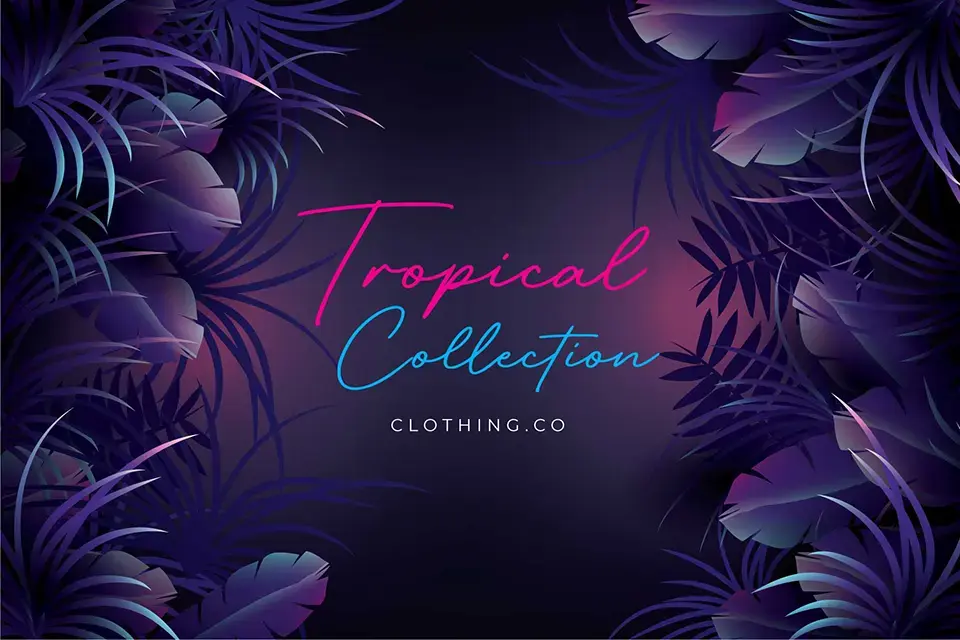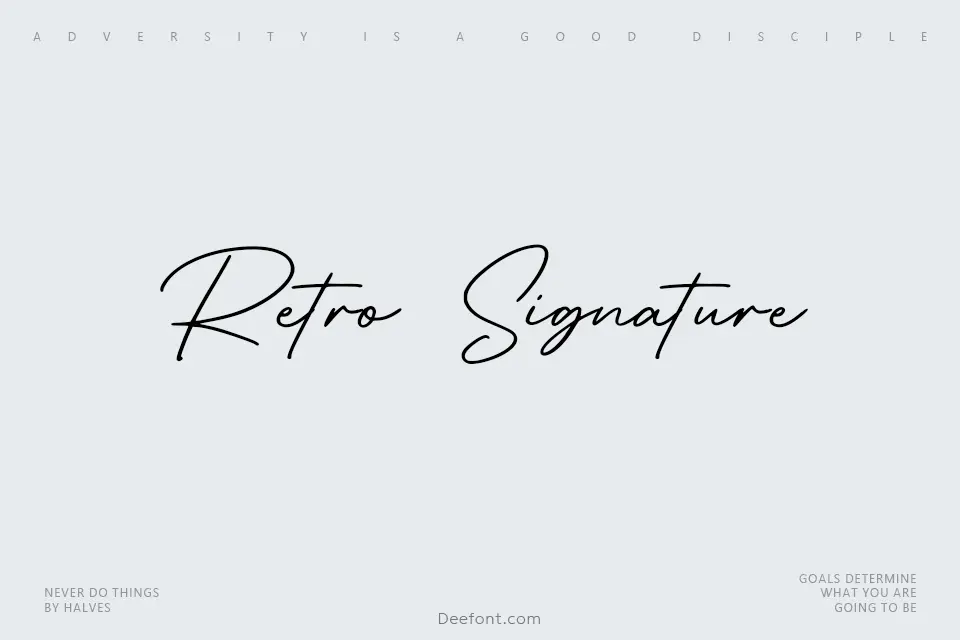
Retro Signature Font
Retro Signature is a sophisticated script font combining vintage charm with modern elegance. Featuring flowing cursive letterforms with refined penmanship, it delivers nostalgic appeal ideal for logos, branding, posters, and social media graphics. The font’s graceful strokes and distinctive character make it perfect for headlines, wedding invitations, packaging design, and decorative display typography. Its 284 glyphs ensure broad language support, making it versatile for international projects seeking retro-inspired aesthetics.